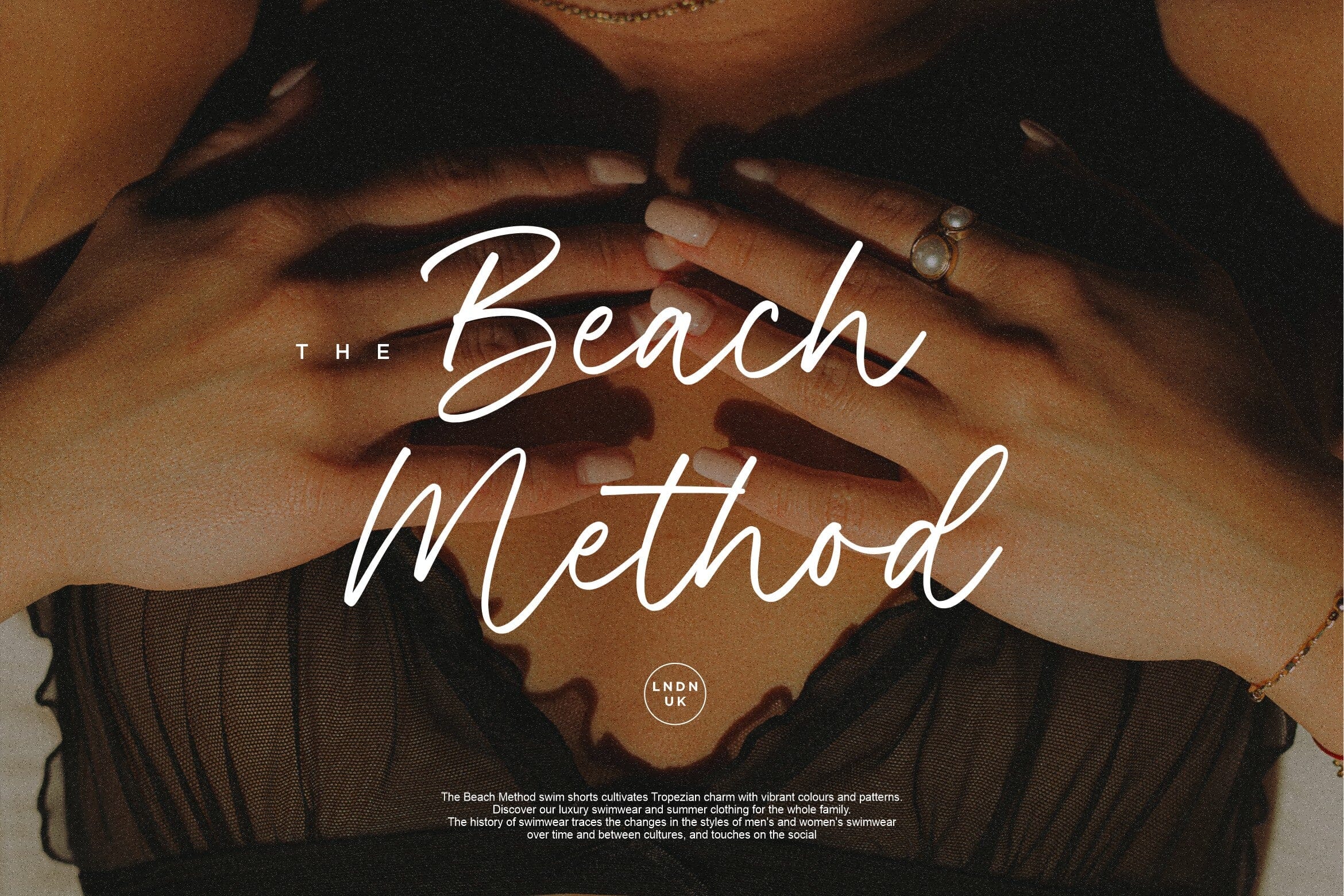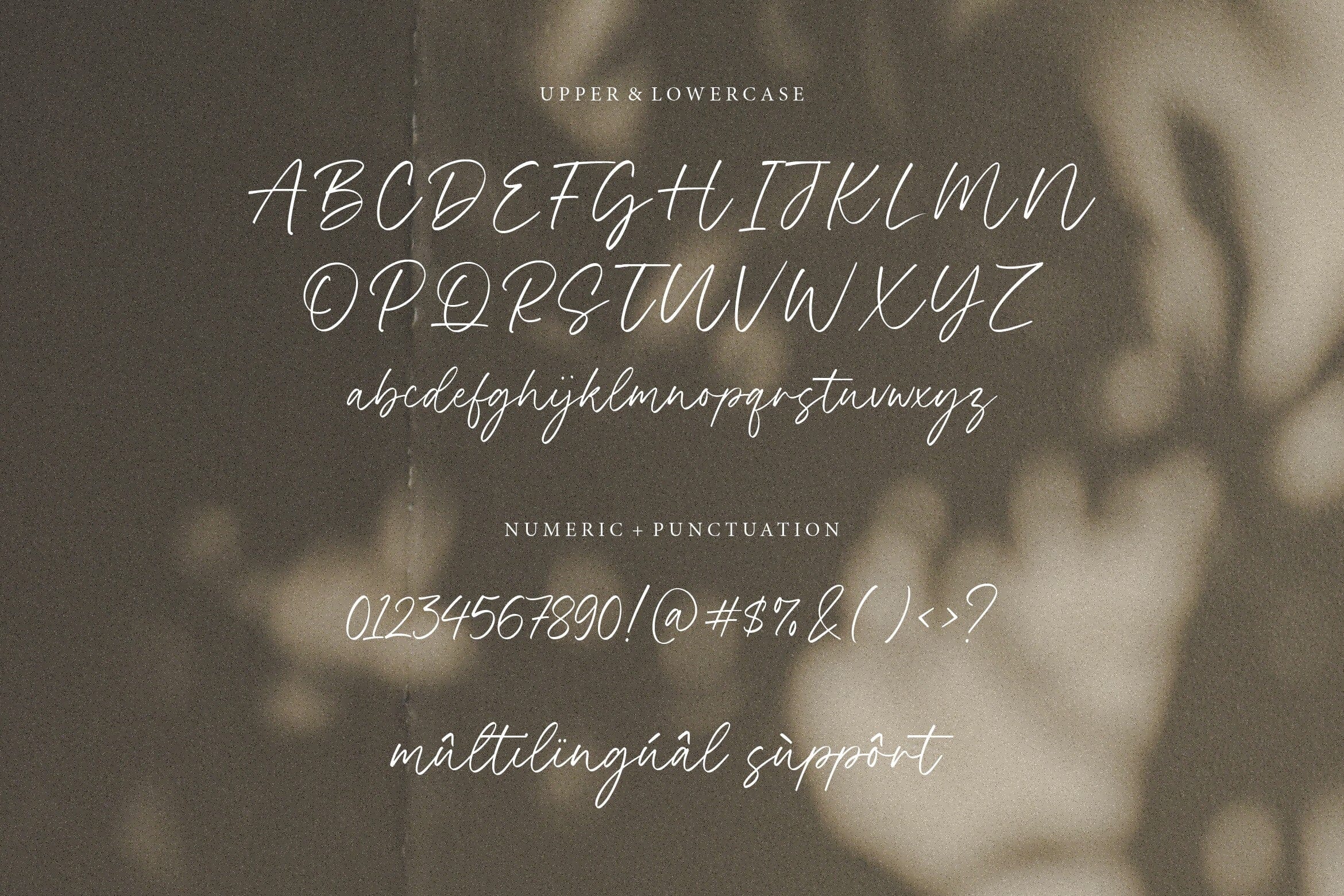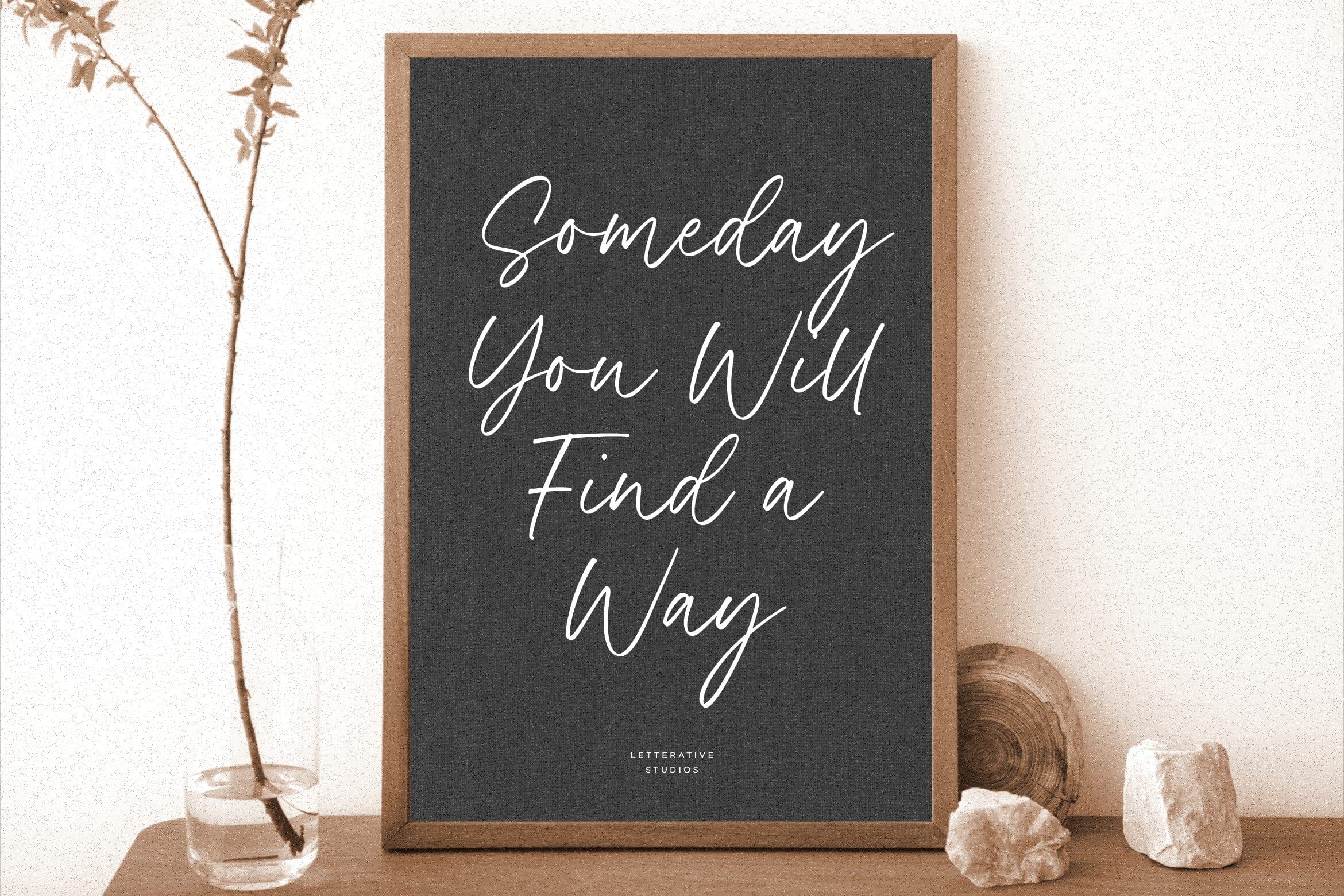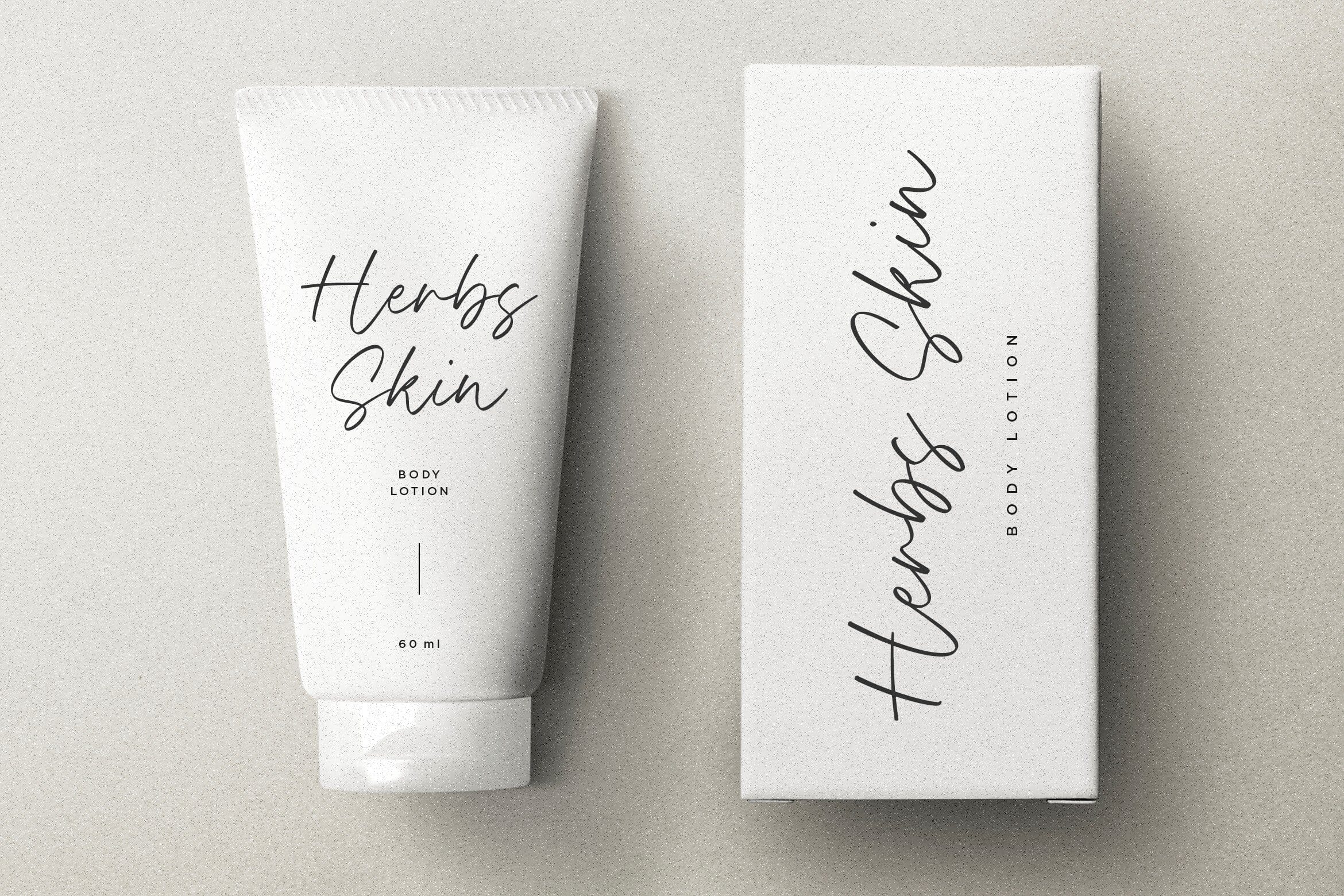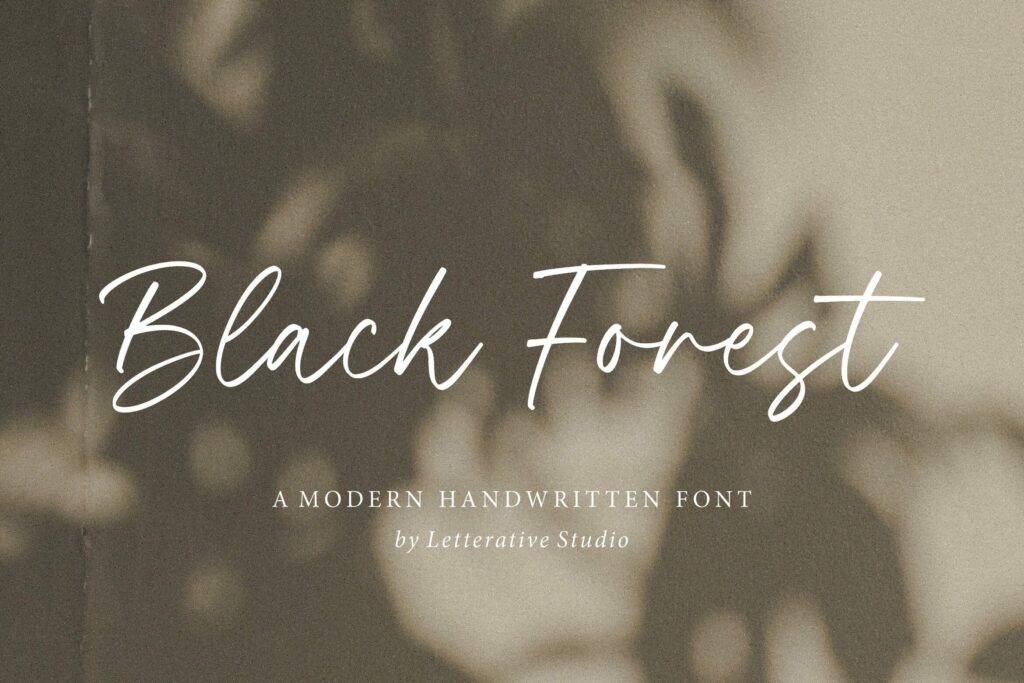
Black Forest Modern Handwritten Font
About Black Forest Modern Handwritten Font
Introducing by Letterative Studio : Black Forest Font Black Forest is a Modern Handwritten Font. Whether you’re using it for crafts, digital design, presentations, or making greeting cards, this font has the potential to become your favorite go-to font, no matter the occasion! This font includes : – TTF, OTF and WOFF – also multilingual support Enjoy the font! Feel free to comment or feedback Send me PM or email Thank you!